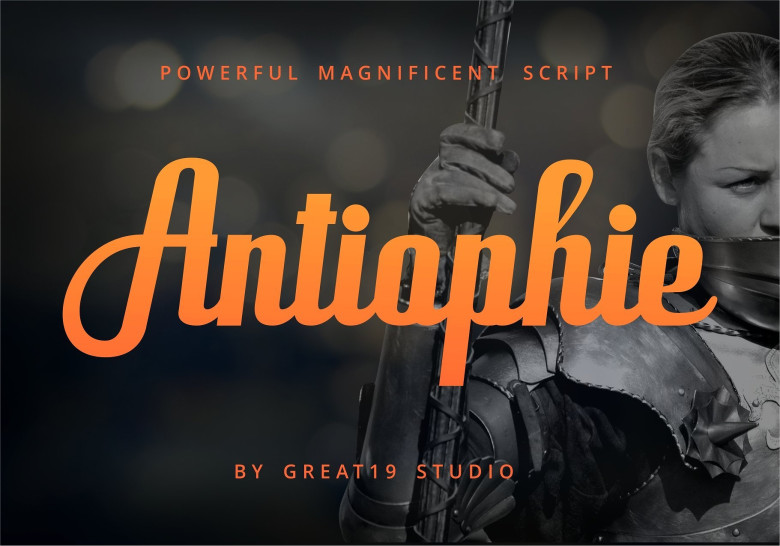
Antiophie Script Font
Thank you for your interest in this font. Start a new working week with a new free font. A script typeface. Introducing Antiophie! Antiophie designed and shared by great19. Passengers is a beautiful stand out typeface with classic touch built in 300 glyphs. This typeface can be used for various purposes.such as logos, wedding card, heading, t-shirt, letterhead, signage, lable, news, posters, badges etc.